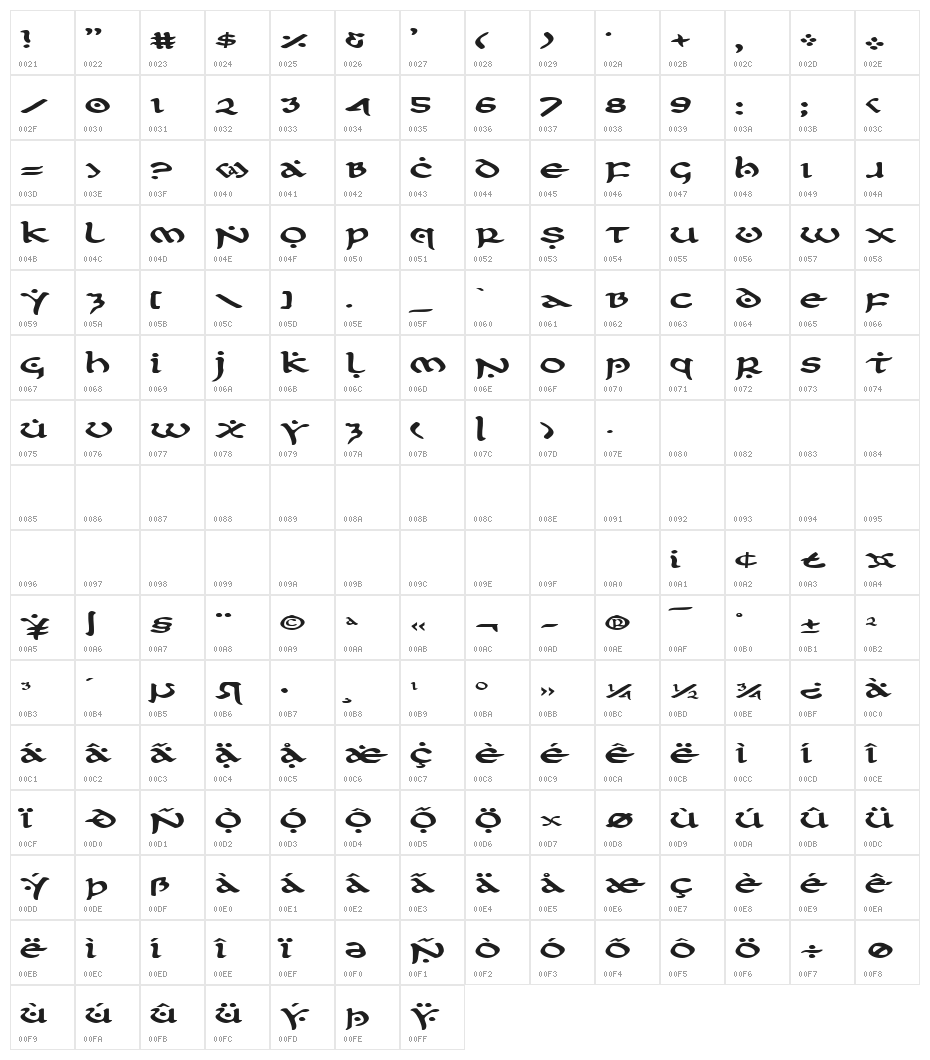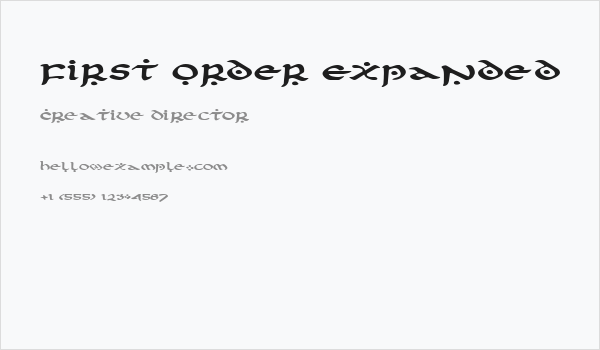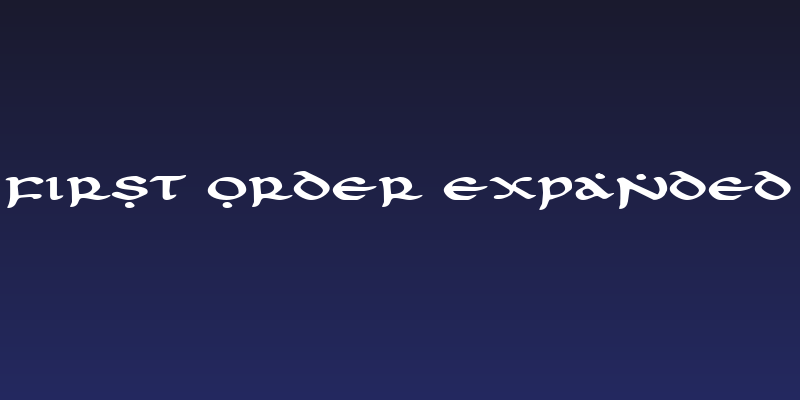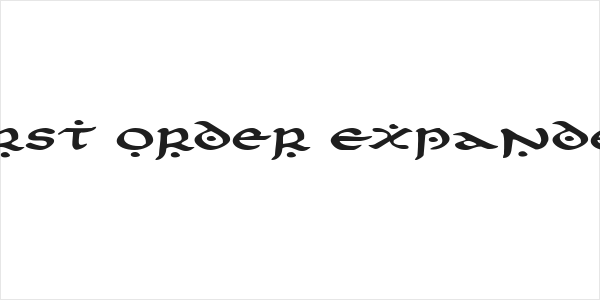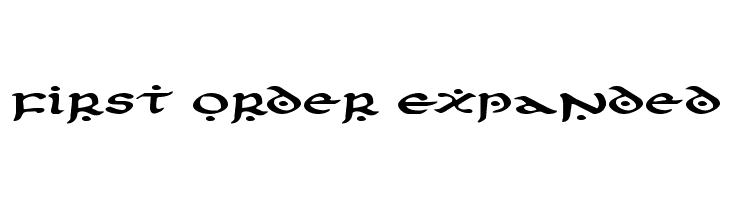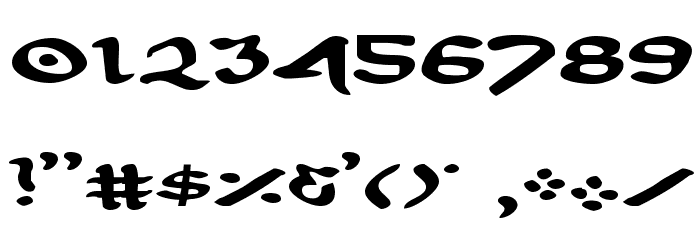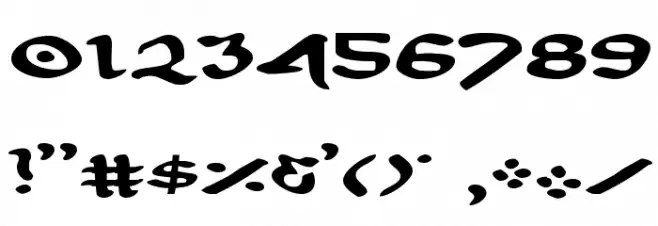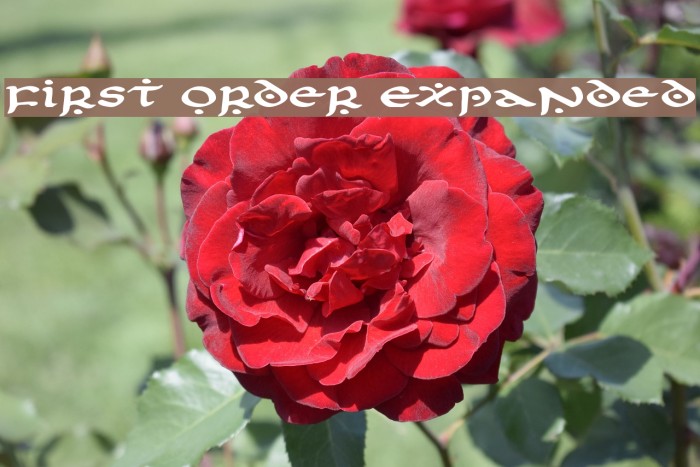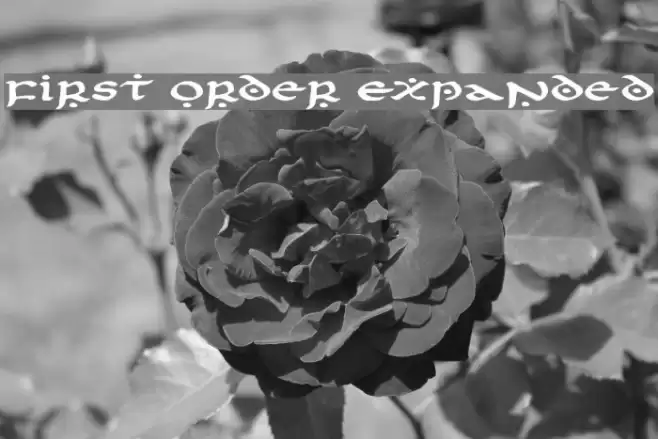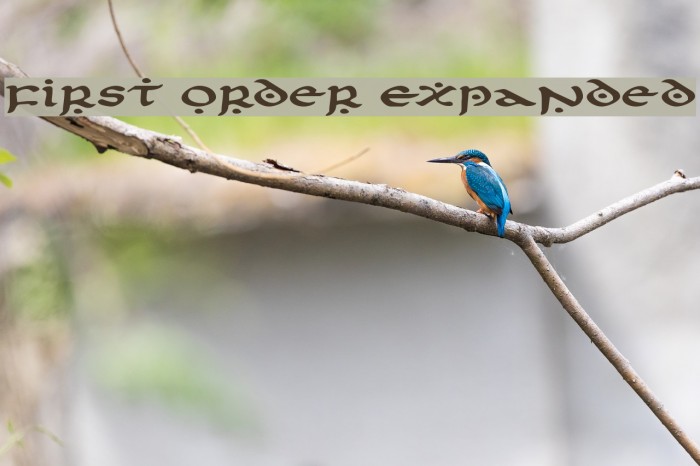
First Order Expanded Font
First Order Expanded Description
This font features a unique and artistic style with a calligraphic flair. The characters are bold and have a distinct medieval or fantasy-inspired appearance. Each letter is adorned with subtle curves and flourishes, giving it an ornamental quality. The uppercase and lowercase letters maintain a consistent design, with the lowercase letters slightly more compact. Numbers and special characters follow the same decorative theme, making them cohesive with the alphabet. The overall impression is one of elegance and creativity, suitable for projects that require a touch of historical or fantastical elements.
| Proposed Projects | Ideal for fantasy book covers, medieval-themed event invitations, or historical video game graphics. |